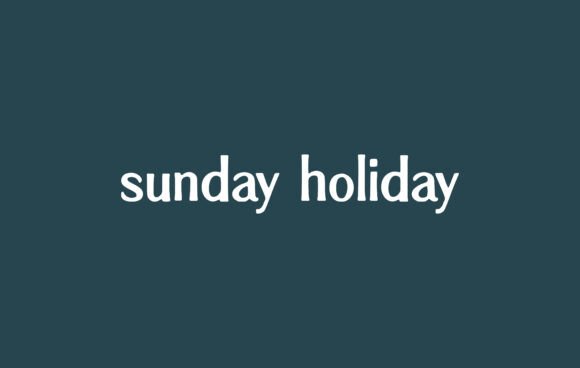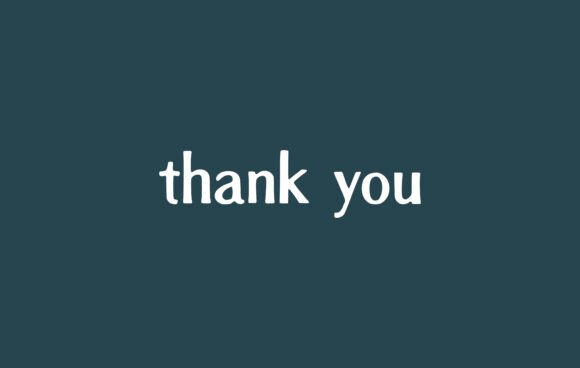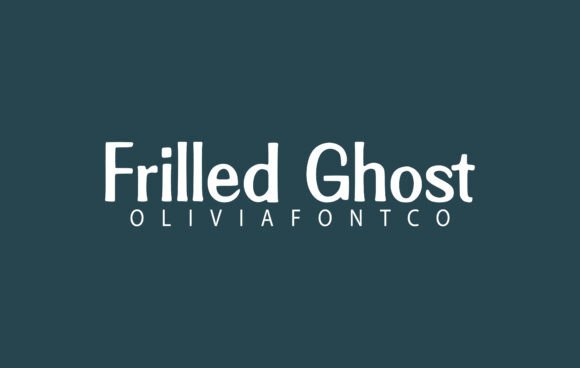
Introducing Frilled Ghost Font: The Ultimate Handwritten Font for Creative Designs
Are you tired of using the same old fonts for your designs? Look no further! Frilled Ghost font is an authentic handwritten font that adds a romantic touch to any creative project. With its unique and elegant style, this font is sure to become a true favorite among designers and crafters.
What Makes Frilled Ghost Font Special?
Frilled Ghost font is expertly designed to take your creative ideas to the highest level. Its legible and versatile design makes it perfect for a wide range of applications, from magazine headlines and social media posts to branding, wedding invitations, and cards.
One of the standout features of Frilled Ghost font is its romantic and whimsical feel. The font’s handwritten style gives it a personal and intimate touch, making it ideal for designs that require a touch of elegance and sophistication.
Uses for Frilled Ghost Font
Frilled Ghost font is incredibly versatile and can be used for a variety of design projects, including:
- Magazine Headlines: Add a touch of elegance to your magazine headlines with Frilled Ghost font. Its bold and eye-catching design is sure to grab the attention of readers.
- Social Media: Stand out on social media with Frilled Ghost font. Use it to create eye-catching posts, stories, and captions that will leave a lasting impression on your followers.
- Branding: Establish your brand’s identity with Frilled Ghost font. Its unique and memorable design will help you build a strong brand image.
- Wedding Invitations: Make your wedding invitations truly special with Frilled Ghost font. Its romantic and whimsical feel is perfect for wedding designs.
- Cards: Add a personal touch to your cards with Frilled Ghost font. Use it to create beautiful and heartfelt greeting cards for any occasion.
Why Choose Frilled Ghost Font?
There are many reasons why Frilled Ghost font stands out from the crowd. Here are just a few:
- Unique Design: Frilled Ghost font has a unique and authentic handwritten design that will set your designs apart from the rest.
- Legibility: The font is highly legible, making it perfect for both title and body text.
- Versatility: Frilled Ghost font can be used for a wide range of design projects, from print to digital.
- Elegance: The font’s romantic and whimsical feel adds a touch of elegance to any design.
Tips for Using Frilled Ghost Font
Here are a few tips for getting the most out of Frilled Ghost font:
- Experiment with Colors: Frilled Ghost font looks great in a variety of colors. Experiment with different colors to find the one that works best for your design.
- Mix and Match: Don’t be afraid to mix and match Frilled Ghost font with other fonts. Its unique design makes it a great pairing with other fonts.
- Use it for Titles and Body Text: Frilled Ghost font is highly legible, making it perfect for both title and body text.
Frilled Ghost font is a truly unique and special font that can add a touch of elegance and sophistication to any design project. Its romantic and whimsical feel makes it perfect for a wide range of applications, from magazine headlines and social media posts to branding, wedding invitations, and cards. With its legibility, versatility, and unique design, Frilled Ghost font is sure to become a favorite among designers and crafters.